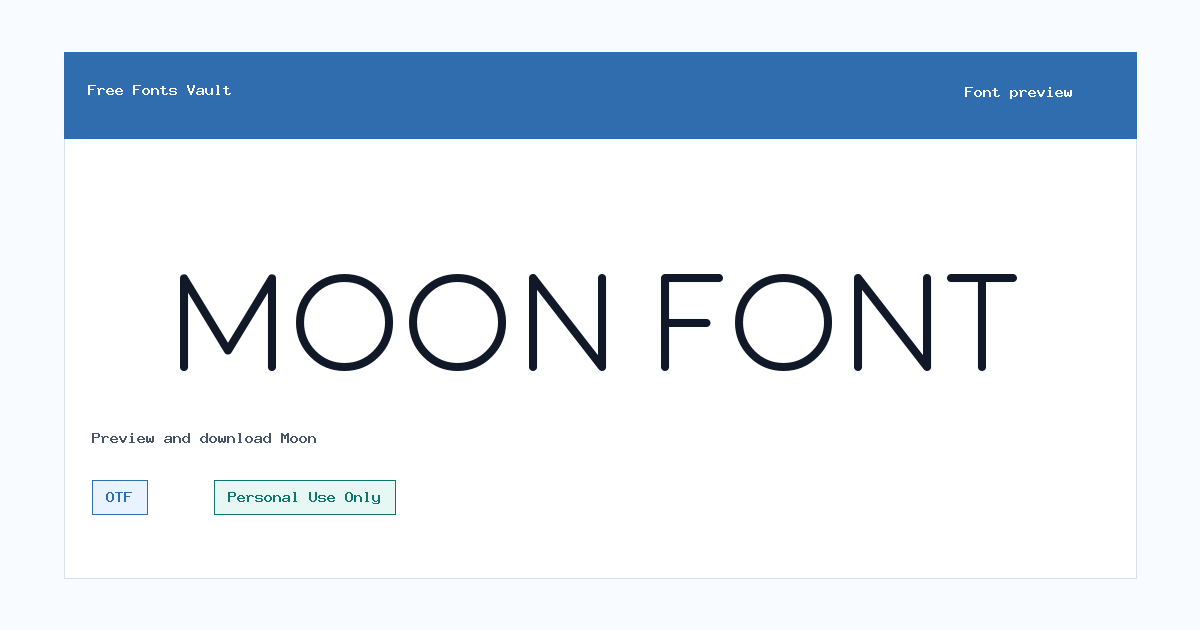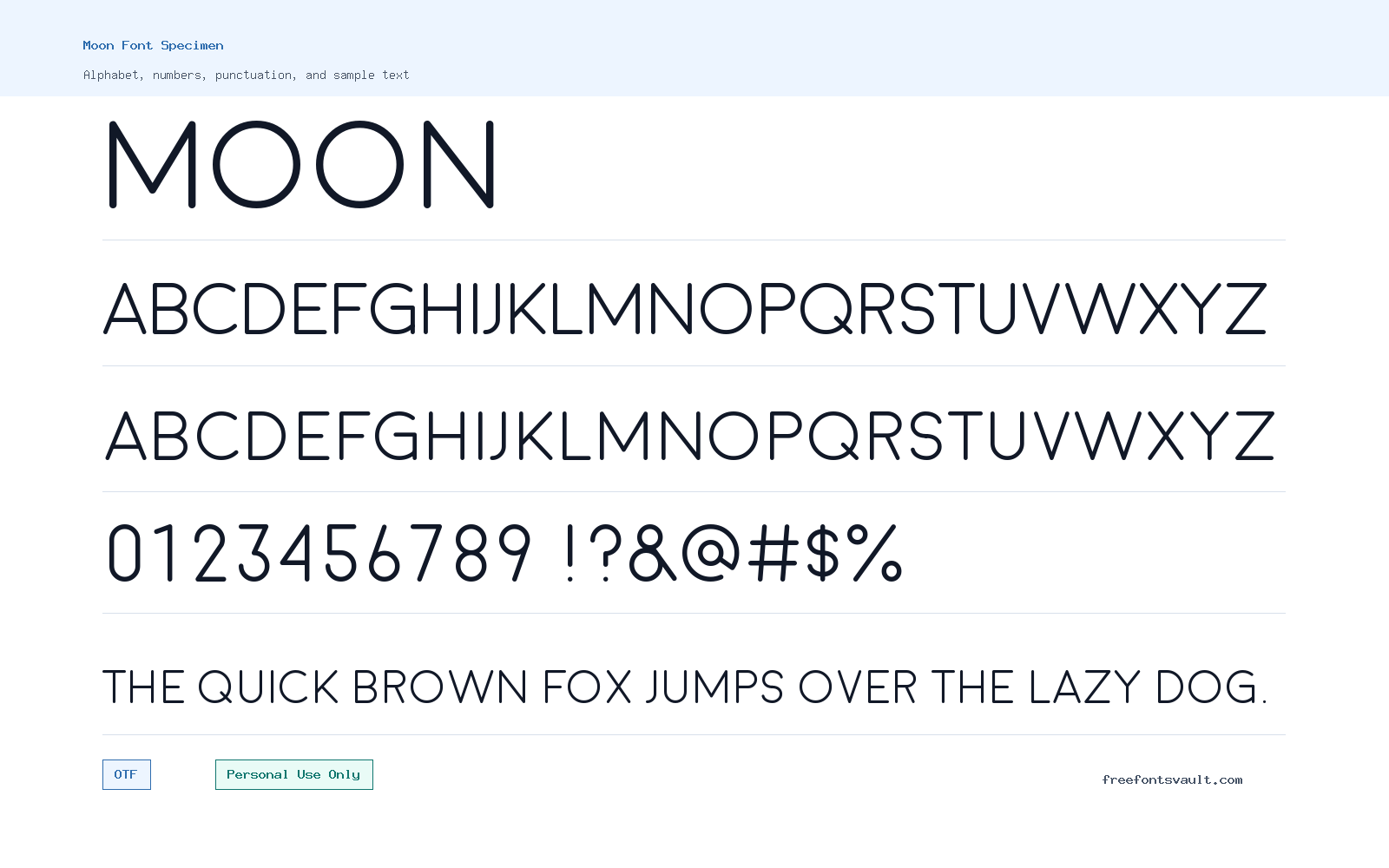
Moon
Moon font.
Moon is a two-weight OTF font family with Light and Bold files, useful for testing clean title treatments, simple branding drafts, posters, and short display text.
About Moon Font
Moon gives you two practical weights to work with: a Light style for quieter, more open text and a Bold style when you need stronger emphasis. Because the family comes in OTF format, it is easy to install on most design apps and preview in headings, logos, social graphics, and layout mockups. The available weights make it better suited to display use than long paragraphs, especially when the Light cut is used at small sizes.
Try Moon in the font preview with the exact words you plan to use. Short names, section titles, quote graphics, labels, and simple poster lines are better tests than a full paragraph. Use the Bold file when contrast or visibility matters, and use the Light file when the design needs a softer look. If your layout includes body copy, pair Moon with a more readable text font and keep Moon for the headline or accent role.
- Two weights allow simple contrast between headings, subheads, and emphasis text.
- Headlines, posters, quote graphics, and short display text.
- Personal design drafts, branding mockups, invitations, and social media images.
What weights does Moon include?
Moon includes Light at weight 300 and Bold at weight 700.